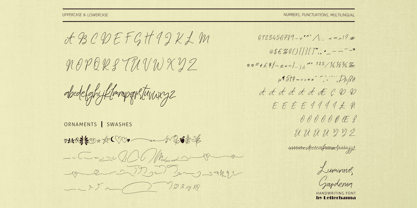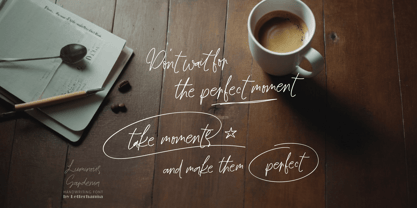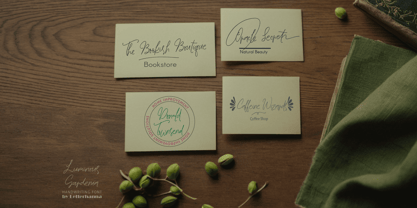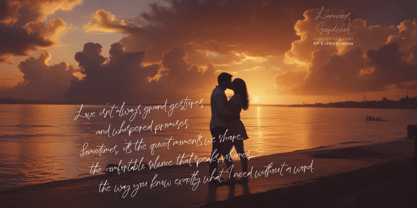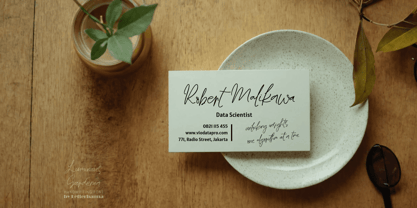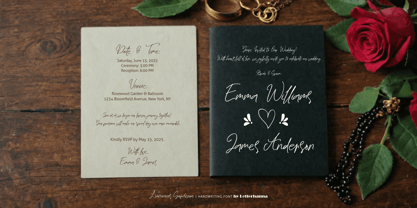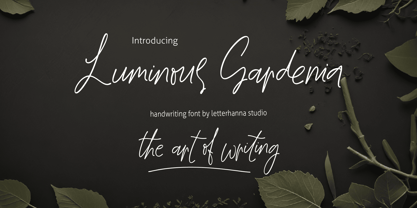
Luminous Gardenia
by Letterhanna Studio
The Luminous Gardenia Font Family was designed by Rinaldo Hasibuan and published by Letterhanna Studio. Luminous Gardenia contains 1 styles. More about this family
A beautifully flowing handwriting script font that captures the elegance of natural penmanship with a modern touch. Delicate yet expressive, this font radiates charm with its smooth curves and graceful strokes, making it perfect for wedding invitations, branding, social media, and more. Whether you're crafting heartfelt messages or stylish designs, Luminous Gardenia brings a luminous touch of sophistication to every project.